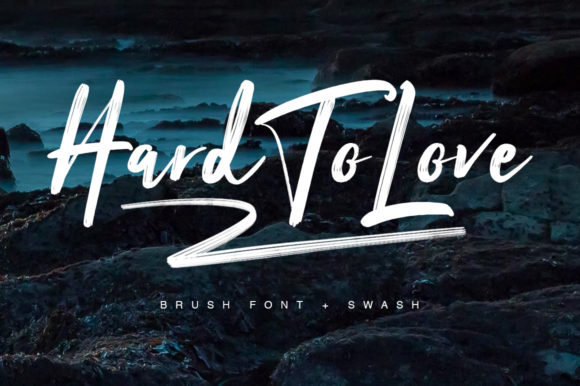
Feast your eyes on Hard to Love, the enchanting script font that weaves a spell of elegance and charm. Stroke by stroke, it dances across the digital canvas, leaving a trail of visual delight. Its relaxed brushed style exudes a sense of effortless beauty, captivating the hearts of those seeking a touch of individuality.
Immerse yourself in the world of Hard to Love, where creativity flourishes and imagination takes flight. Let its graceful curves and playful strokes elevate your Instagram bio, transforming it into a captivating masterpiece. With Hard to Love, your online presence will radiate an aura of sophistication and allure, captivating the attention of all who encounter it.
Step into a realm where creativity knows no bounds. Hard to Love is not just a font; it's a gateway to expressing your unique style and personality. Its versatility knows no limits, allowing you to craft stunning logos, eye-catching social media posts, and captivating website designs. Unleash your inner artist and let Hard to Love be your muse, guiding you toward design brilliance.
With Hard to Love, the possibilities are endless. Its carefully crafted characters dance in perfect harmony, creating a visual symphony that captivates the senses. Its beauty lies in its simplicity, making it the perfect choice for those who value timeless elegance. Let Hard to Love be your secret weapon, transforming your creative visions into tangible works of art.
Don't let mediocrity hold you back. Embrace the beauty of Hard to Love and watch your creative endeavors soar to new heights. Its enchanting allure will leave an indelible mark on your designs, captivating the hearts of your audience. Dare to be different, dare to stand out, and let Hard to Love be your guiding light.